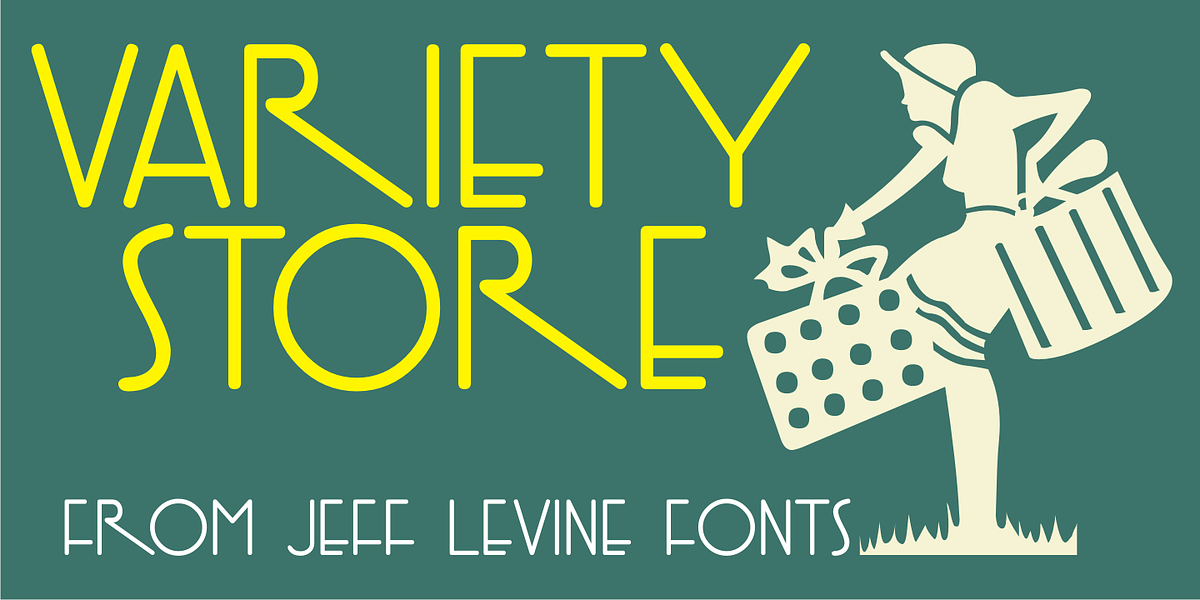
Variety Store JNL
Ben Harris’ illustrated cover for the sheet music of “I Found A Million Dollar Baby (in a Five and Ten Cent Store)” from 1931’s “Billy Rose’s Crazy Quilt” lists the show’s stars and other credits in a pen lettered monoline design with rounded terminals.
This early Art Deco type style has now become the digital font Variety Store JNL (a reference to the Five and Ten Cent stores alluded to in the song title from the sheet music).